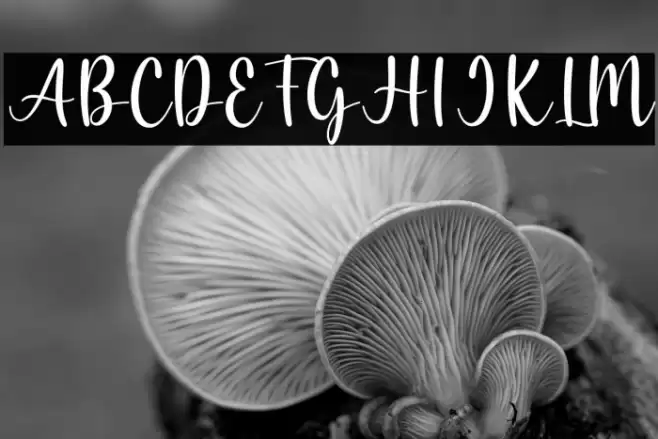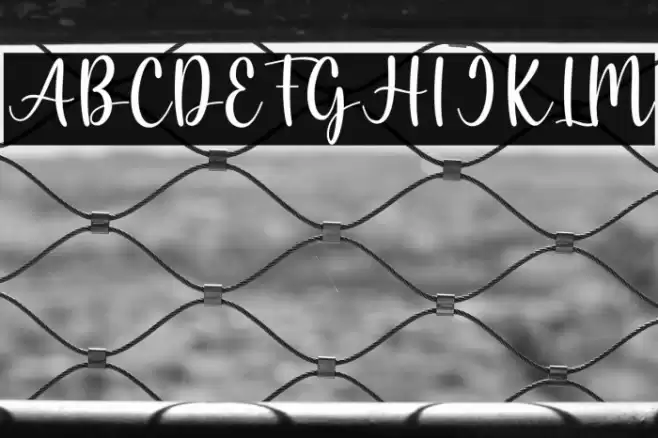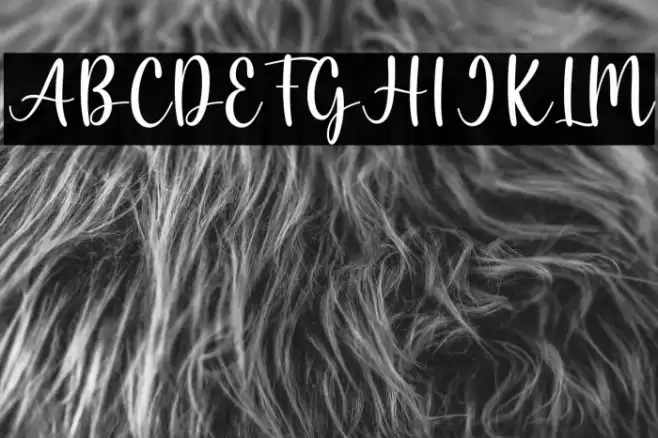
Aloha 1 Font
Aloha 1 Description
This font features a lively and flowing script style, characterized by its elegant and cursive letterforms. The uppercase letters are tall and slightly narrow, with graceful loops and swashes that add a sense of movement and sophistication. The lowercase letters maintain a consistent flow, with rounded forms and smooth connections between characters. The numerals are bold and slightly elongated, complementing the overall style. Special characters are designed with the same fluidity, ensuring a cohesive look across all glyphs. This font exudes a playful yet refined aesthetic, making it suitable for a variety of creative applications.
A lively and elegant script font with flowing, cursive letterforms from Uncategorized fonts.
- Font: Aloha 1